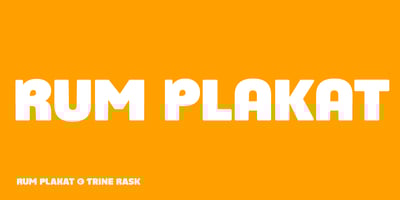
Rum Plakat Font Family was designed by Trine Rask and published by Trine Rask. Rum Plakat contains 1 styles and family package options. Rum Plakat is a display type developed as a display face within the type family »Rum«Rum Plakat is an alternative version of Rum Soft Sans Black. It is suitable for posters and editorial design in large sizes & other eye catching matters.The complete family consists of Sans Serif & Serif in both sharp and soft version + the display fonts Rum Plakat & Rum Silhouette.